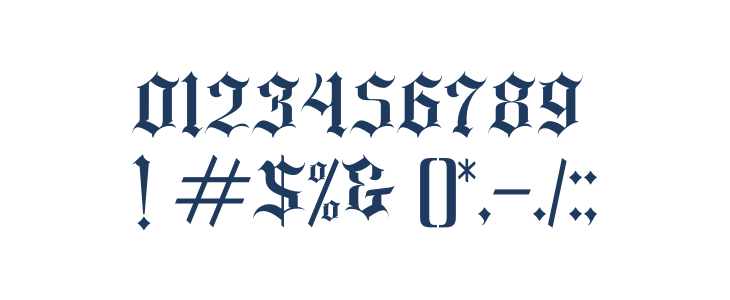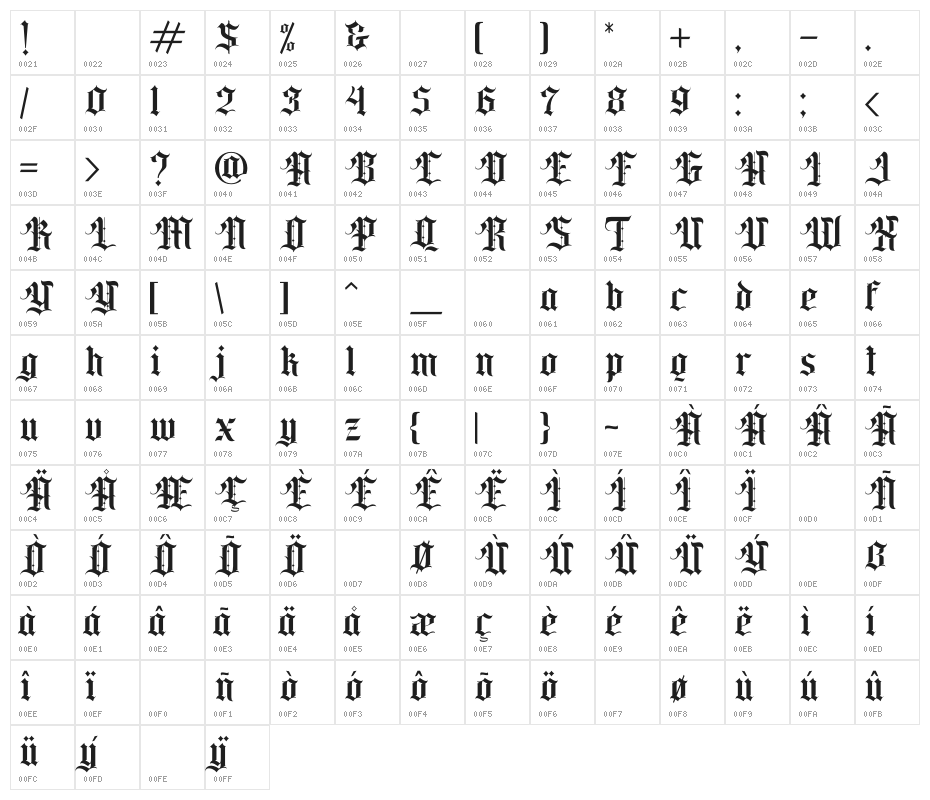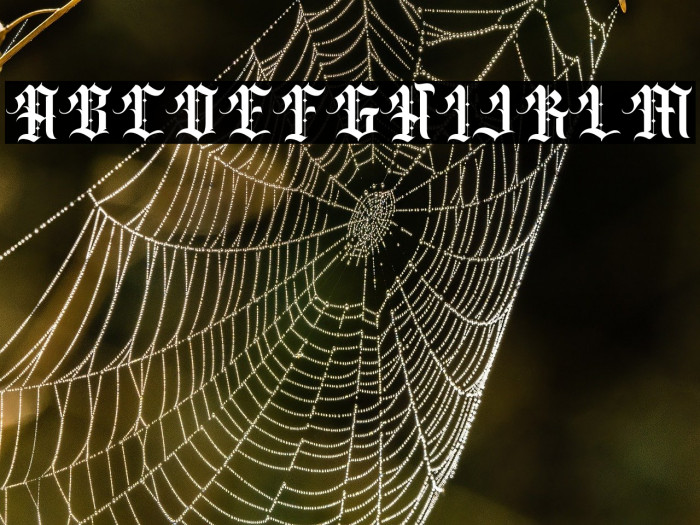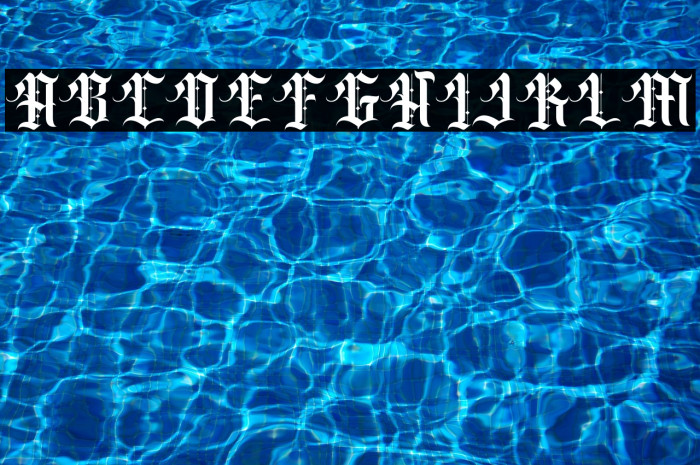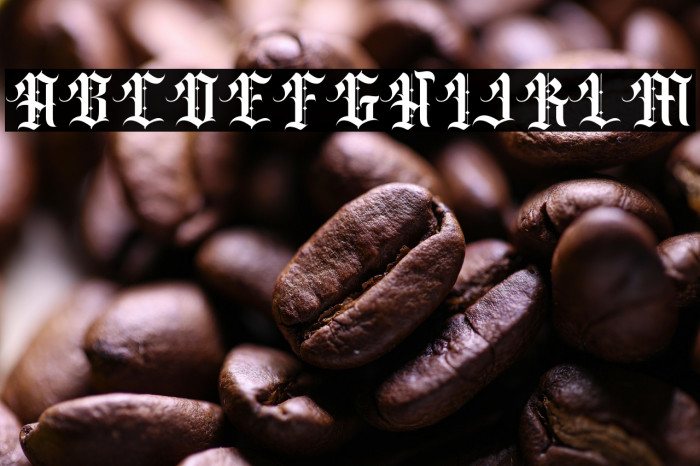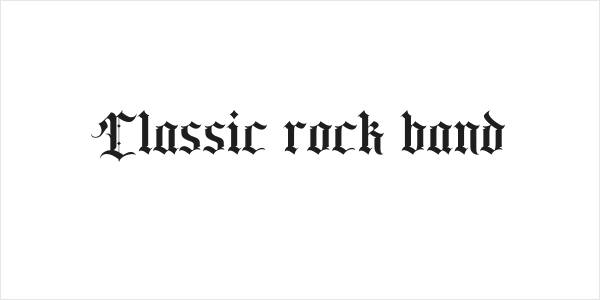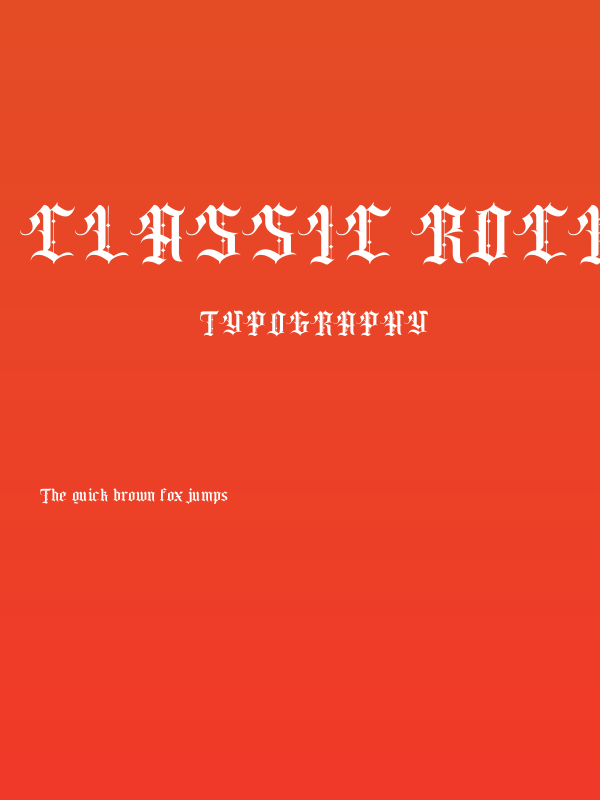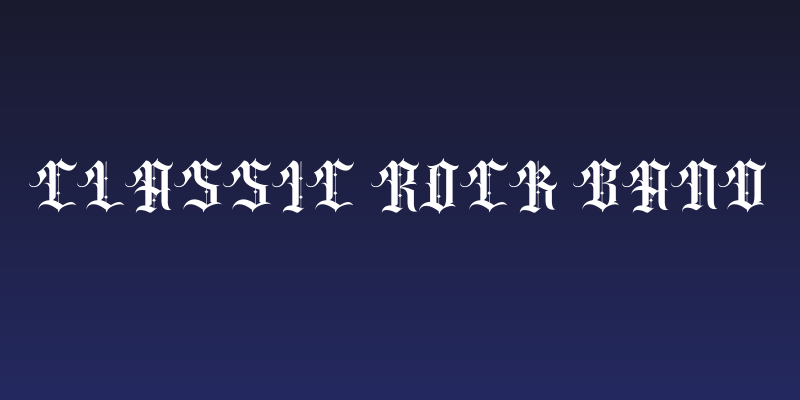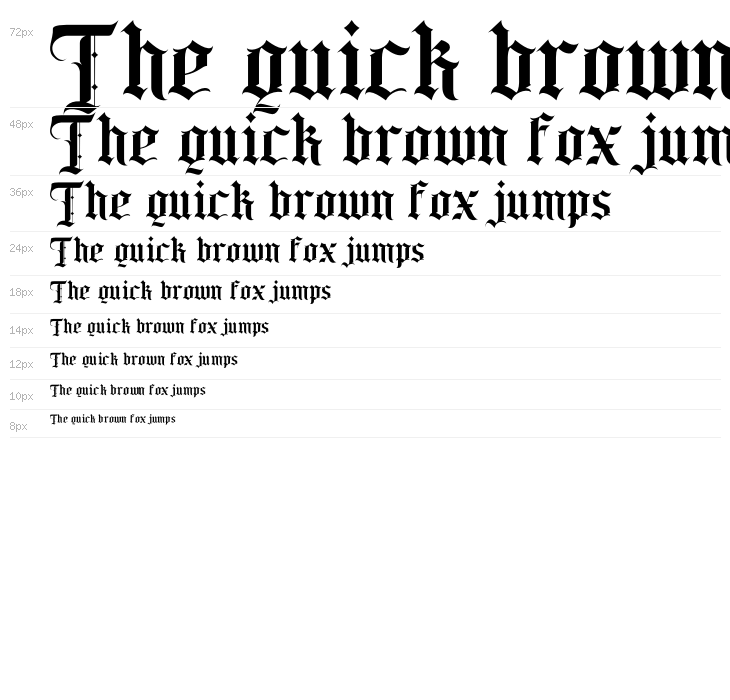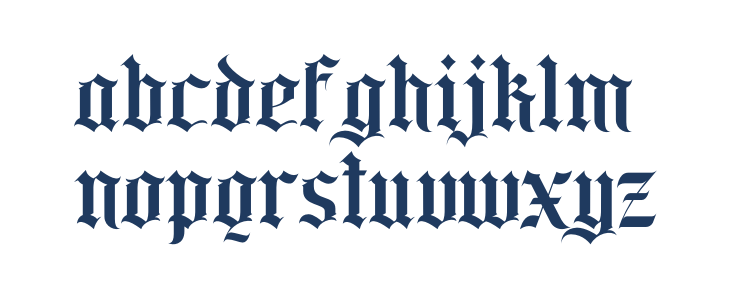
This font is a striking example of Blackletter style, characterized by its intricate and ornate design. The letters feature sharp, angular lines with dramatic flourishes and pointed edges, reminiscent of medieval script. The uppercase letters are particularly elaborate, with bold strokes and decorative elements that give them a gothic appearance. The lowercase letters maintain the same level of detail, ensuring consistency throughout the typeface. Numbers and special characters are equally stylized, making this font ideal for creating a dramatic and historical aesthetic. Its bold presence and high contrast between thick and thin strokes make it stand out, capturing attention with its unique and classic look.
| Proposed Projects | Ideal for projects requiring a historical or gothic theme, such as book covers, posters, or branding for music bands. |